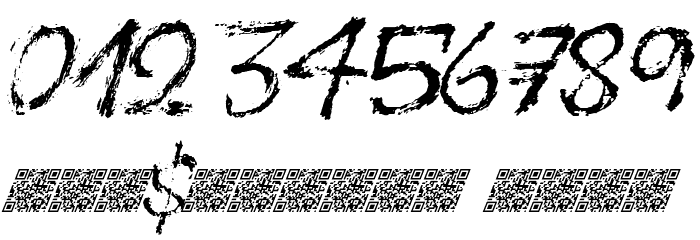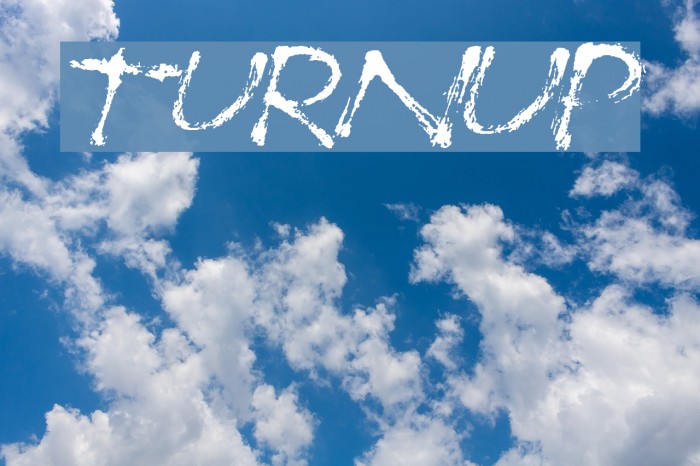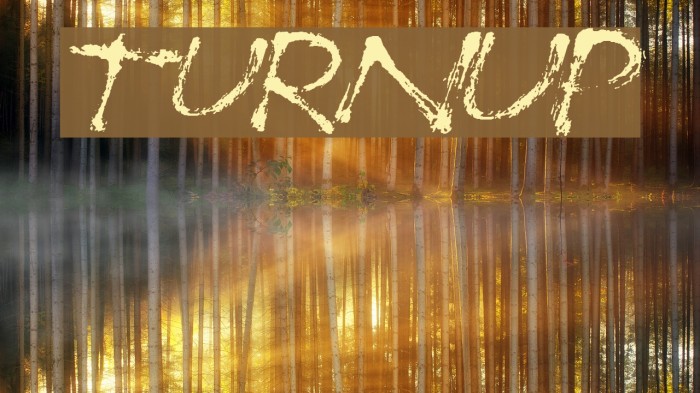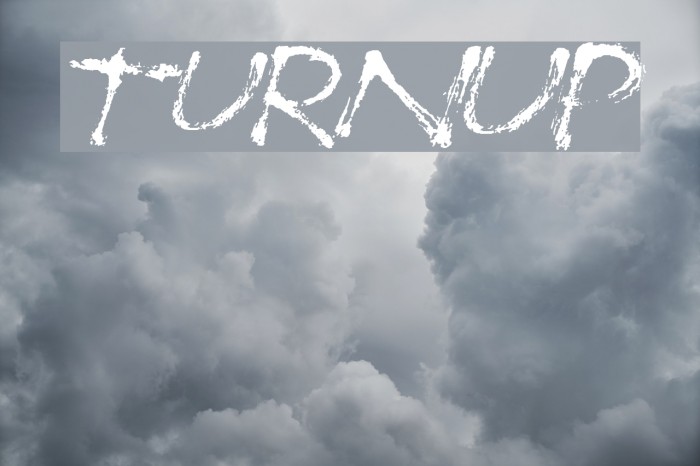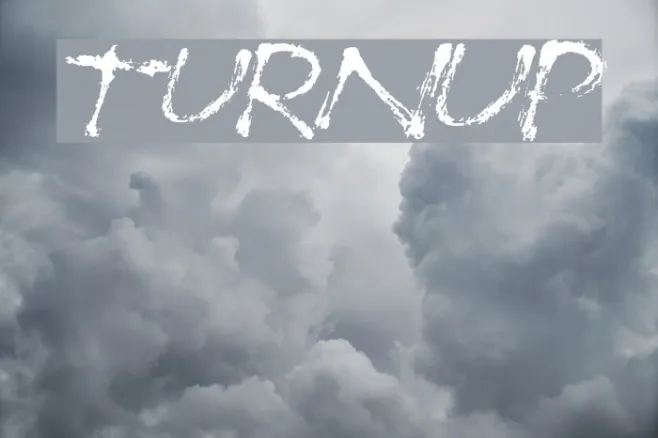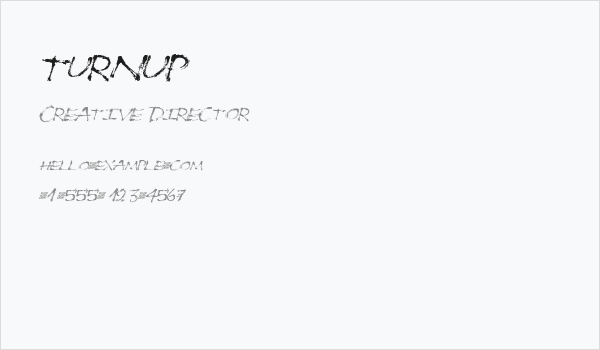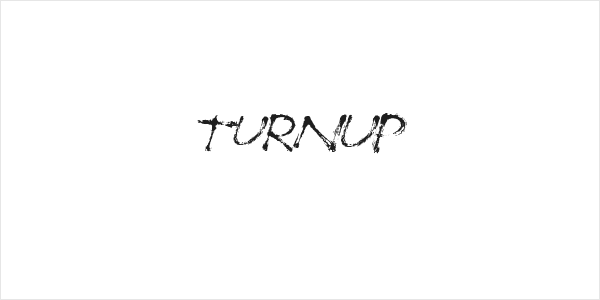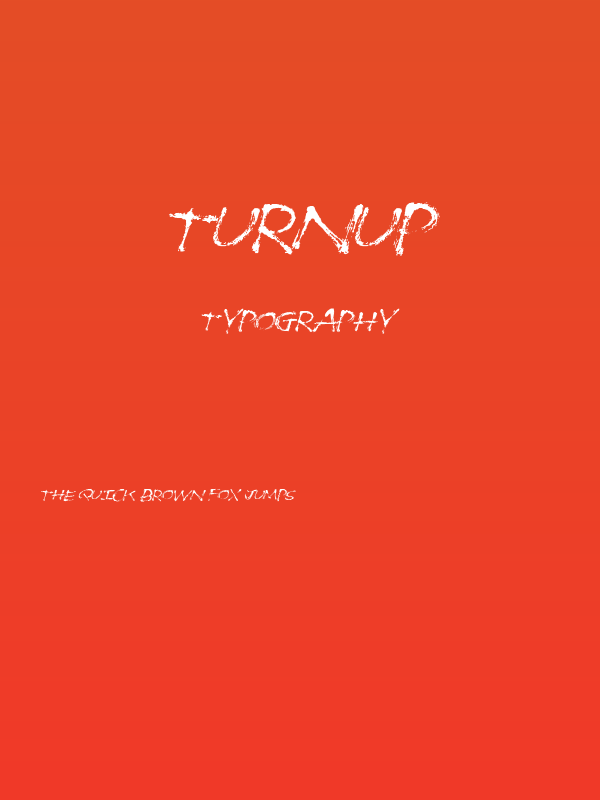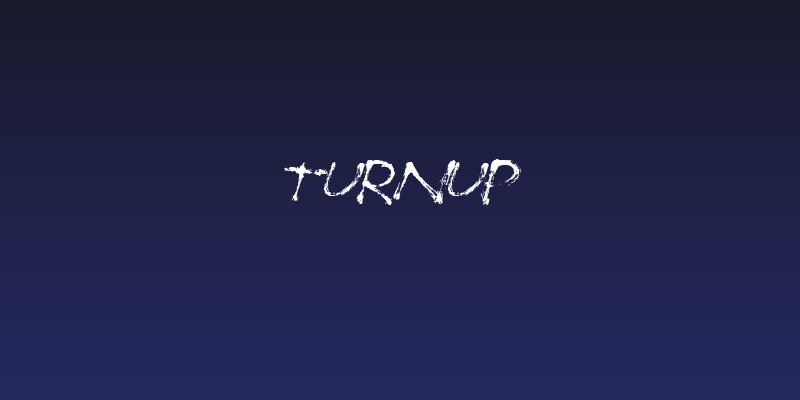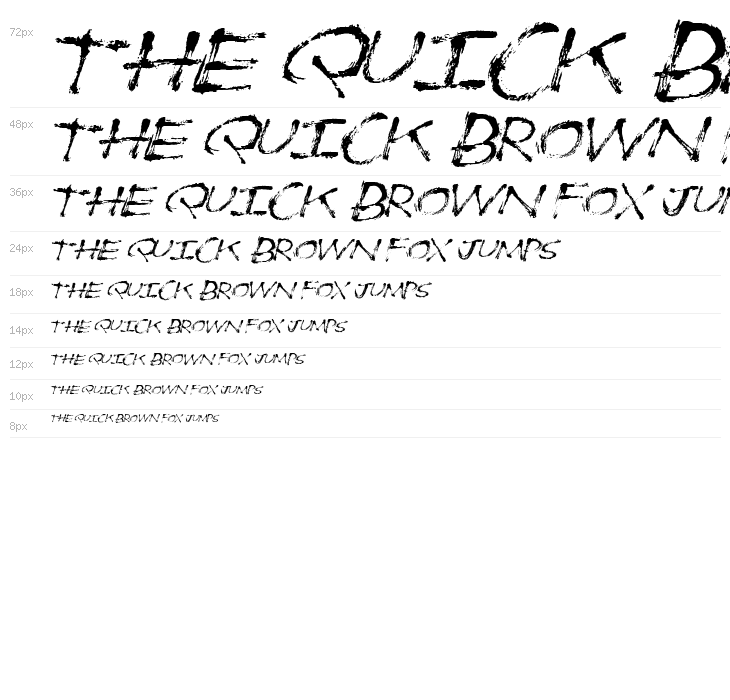
TurnUp Font
TurnUp Description
This font features a bold, distressed style with a rough, textured appearance that gives it a grunge or urban feel. The characters are irregular and appear as if they have been painted with a dry brush, creating a dynamic and energetic look. The uppercase and lowercase letters maintain a consistent style, with jagged edges and varying line thicknesses that add to the font's raw aesthetic. Numbers and special characters follow the same design principles, ensuring a cohesive look across all elements. This font is ideal for projects that require a bold statement or an edgy, artistic touch.
| Overall Style | Grunge, Urban, Artistic |
| Proposed Projects | Ideal for album covers, streetwear branding, posters, and any design needing an edgy, artistic touch. |